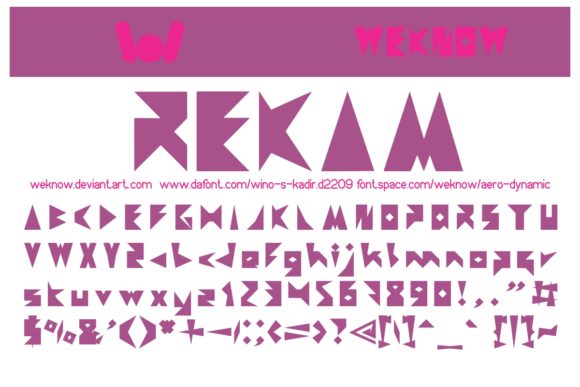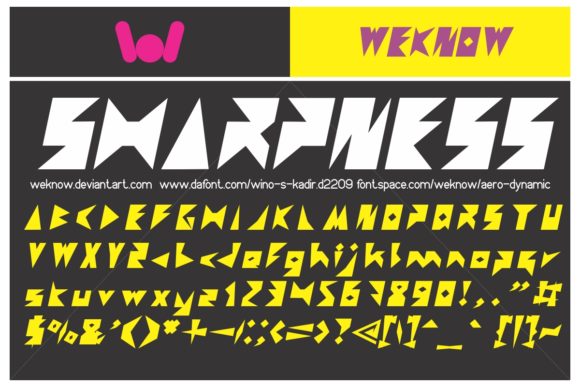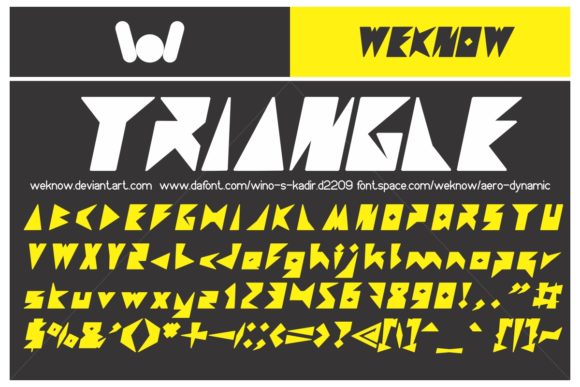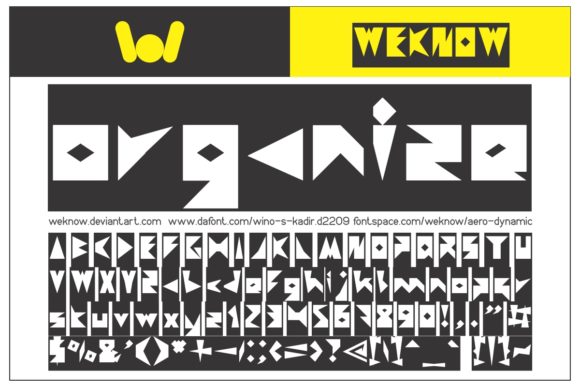
Introducing Creative Mind Font: Celebrating Abstract Shapes in Eclectic Beauty
In the world of typography, a new font has emerged that is sure to capture the attention of designers and crafters alike. Creative Mind Font is a playfully conceptual display typeface that celebrates abstract shapes in all their eclectic beauty. With its unique and eye-catching design, this font is set to make a statement in a wide range of contexts.
The Inspiration Behind Creative Mind Font
The Creative Mind Font is inspired by the beauty of abstract shapes and the eclectic mix of styles that can be found in the world of art and design. The font’s creator aimed to capture the essence of creativity and self-expression, bringing together a range of unique and fascinating shapes to create a truly one-of-a-kind typeface.
Key Features of Creative Mind Font
So, what makes Creative Mind Font so special? Here are just a few of its key features:
- Unique and eclectic design: Each letter in the font has been carefully crafted to showcase a range of abstract shapes and styles, making it perfect for designers and crafters looking to add a touch of personality to their work.
- Playful and conceptual: Creative Mind Font is a playfully conceptual display typeface that is sure to bring a smile to the face of anyone who sees it.
- Highly versatile: Whether you’re working on a logo, a poster, or a website, Creative Mind Font is sure to look truly outstanding in a wide range of contexts.
Uses for Creative Mind Font
So, what can you use Creative Mind Font for? The possibilities are endless! Here are just a few ideas to get you started:
- Logo design: With its unique and eye-catching design, Creative Mind Font is perfect for creating logos that stand out from the crowd.
- Poster design: Whether you’re creating a poster for a concert, a festival, or a sale, Creative Mind Font is sure to grab attention and make your design pop.
- Website design: Add a touch of personality to your website with Creative Mind Font, perfect for headings, titles, and other design elements.
- Social media graphics: Stand out on social media with Creative Mind Font, perfect for creating eye-catching graphics and posts.
Tips for Using Creative Mind Font
Here are a few tips for getting the most out of Creative Mind Font:
- Experiment with different colors: Creative Mind Font looks great in a range of colors, so don’t be afraid to experiment and find the perfect hue for your design.
- Mix and match: Try pairing Creative Mind Font with other fonts and design elements to create a truly unique and eye-catching design.
- Keep it simple: While Creative Mind Font is a bold and eye-catching font, it’s best to keep your design simple and clean to really make it shine.
In conclusion, Creative Mind Font is a truly unique and exciting new typeface that is sure to capture the attention of designers and crafters alike. With its eclectic and abstract design, this font is perfect for anyone looking to add a touch of personality and creativity to their work. So why not give it a try and see what amazing designs you can create?